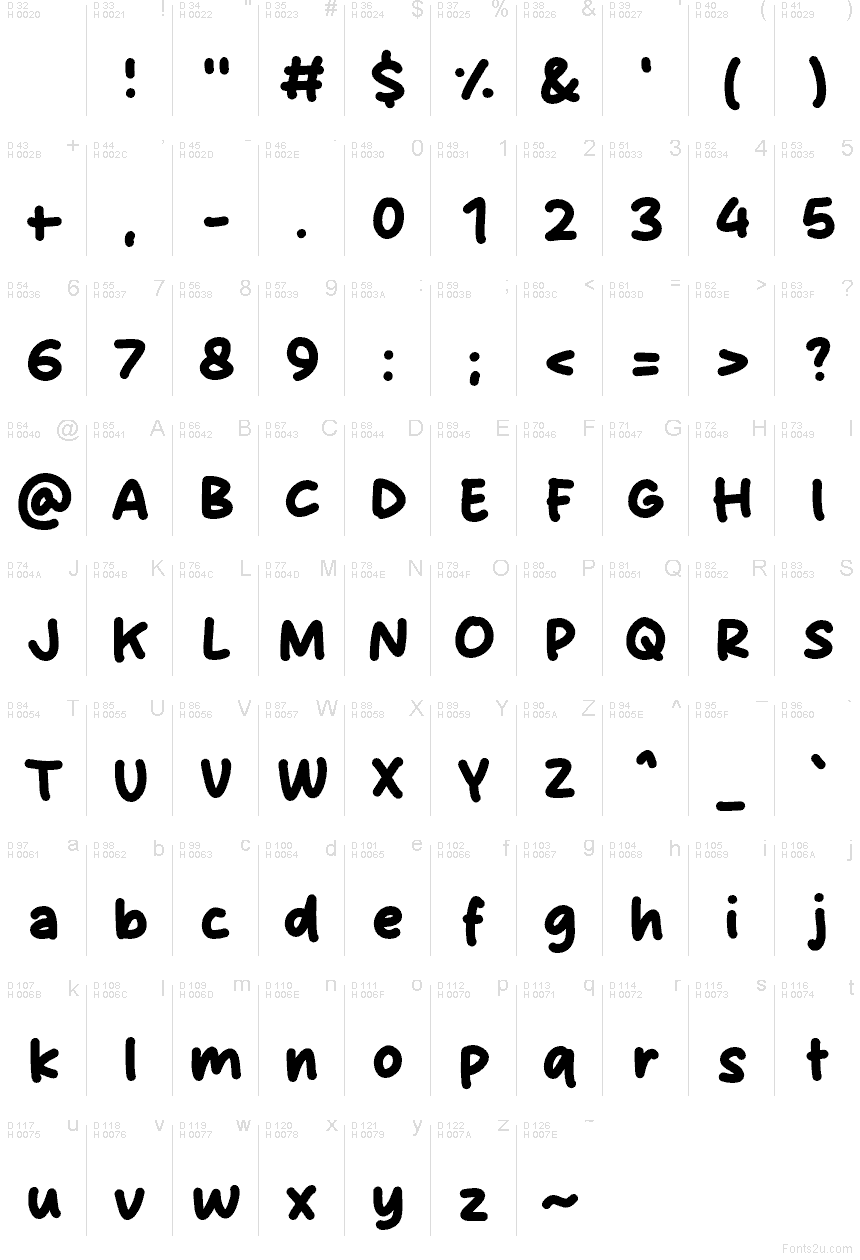
Doodle Touch
Doodle Touch font by MJType is a free handwritten font that feels like thick marker lettering scribbled with confidence. Its rounded, slightly chunky strokes keep every word bold and friendly, while the even spacing makes it surprisingly easy to read at smaller sizes. The letters have that casual, doodled energy without slipping into messiness, which helps you add personality without sacrificing clarity.
Using Doodle Touch, you can bring warmth to kids’ books, classroom printables, social posts, stickers, logos, packaging, and fun quote graphics. This free font shines when you use it big and bold, then pair it with a clean sans serif for supporting text to keep layouts playful but organized.